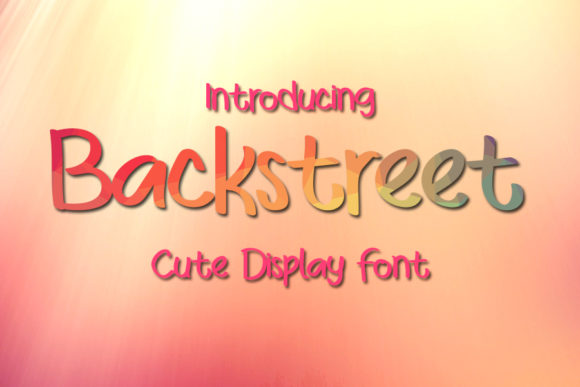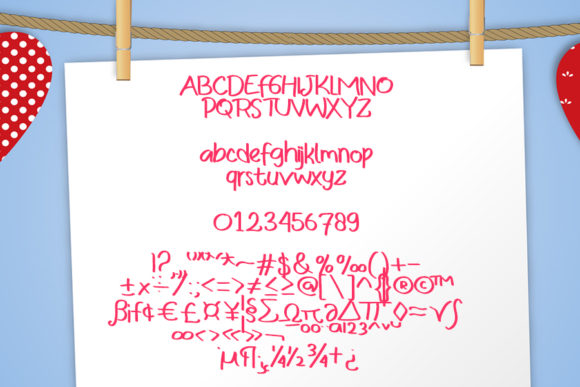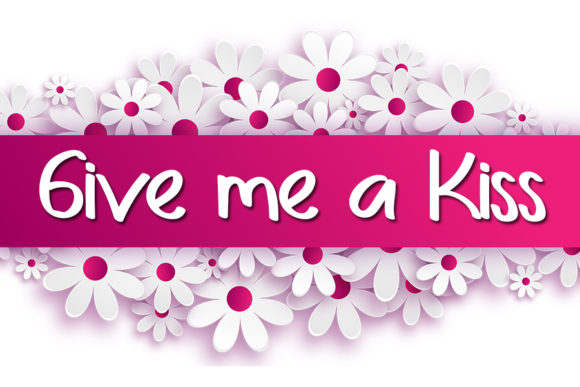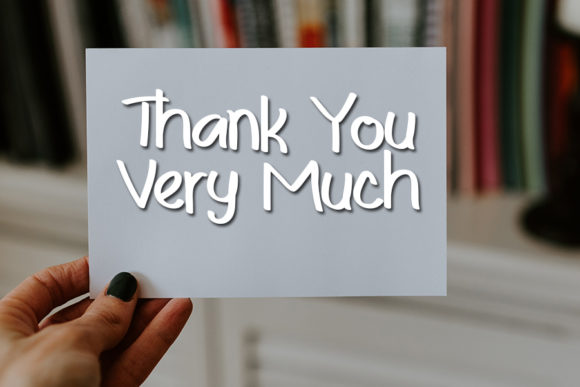
Backstreet Font
About Backstreet Font
Backstreet is a simple and friendly handwritten font. Use this font for your designs and explore its endless possibilities.